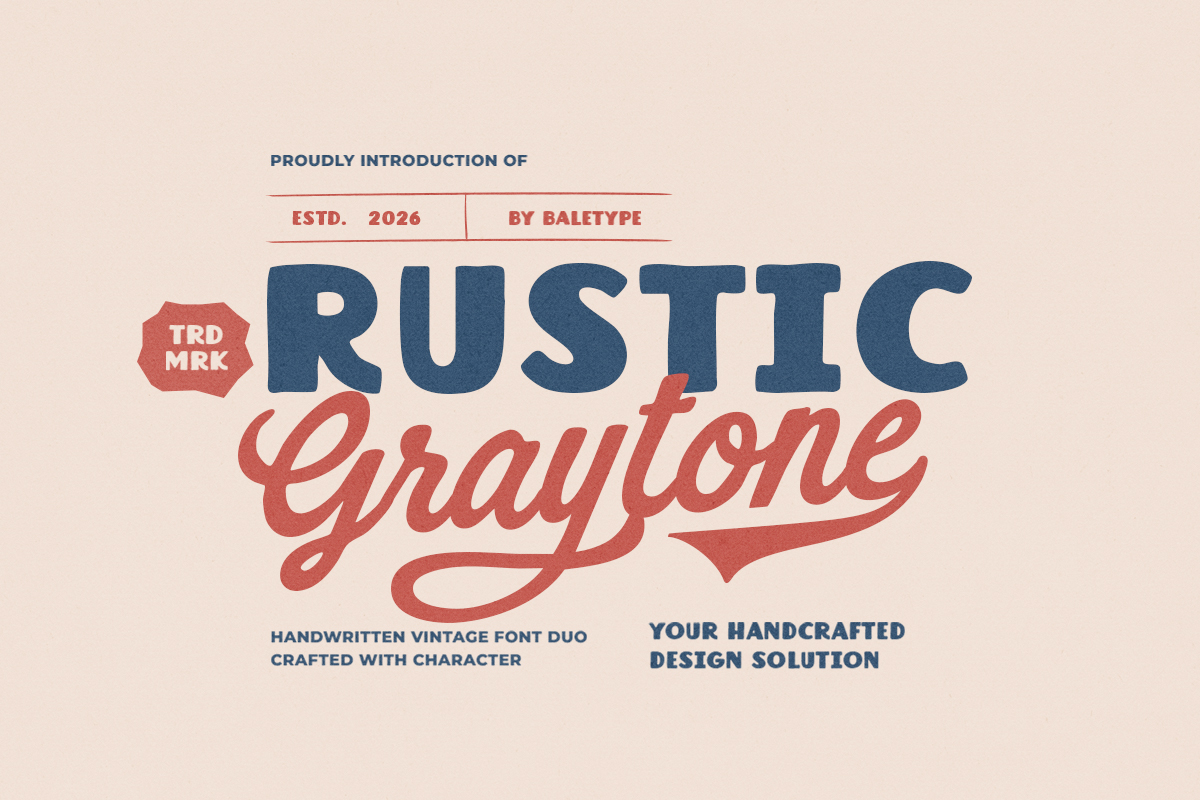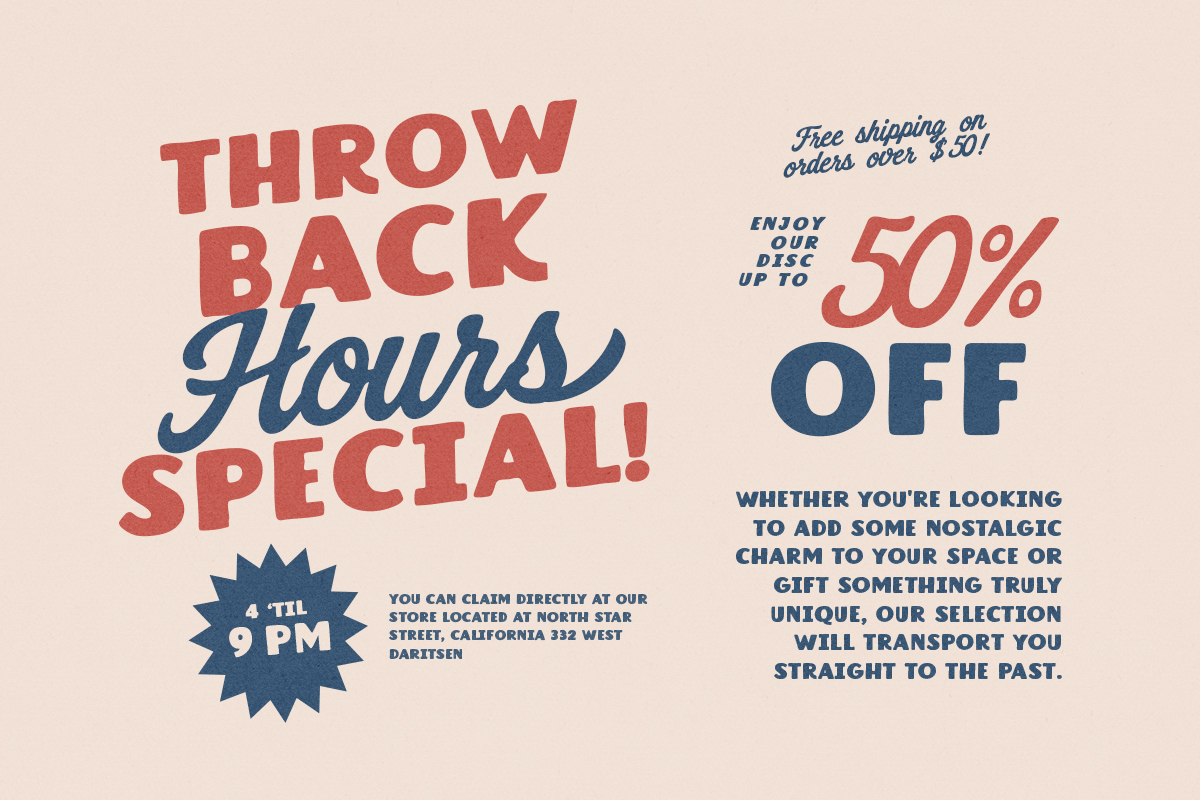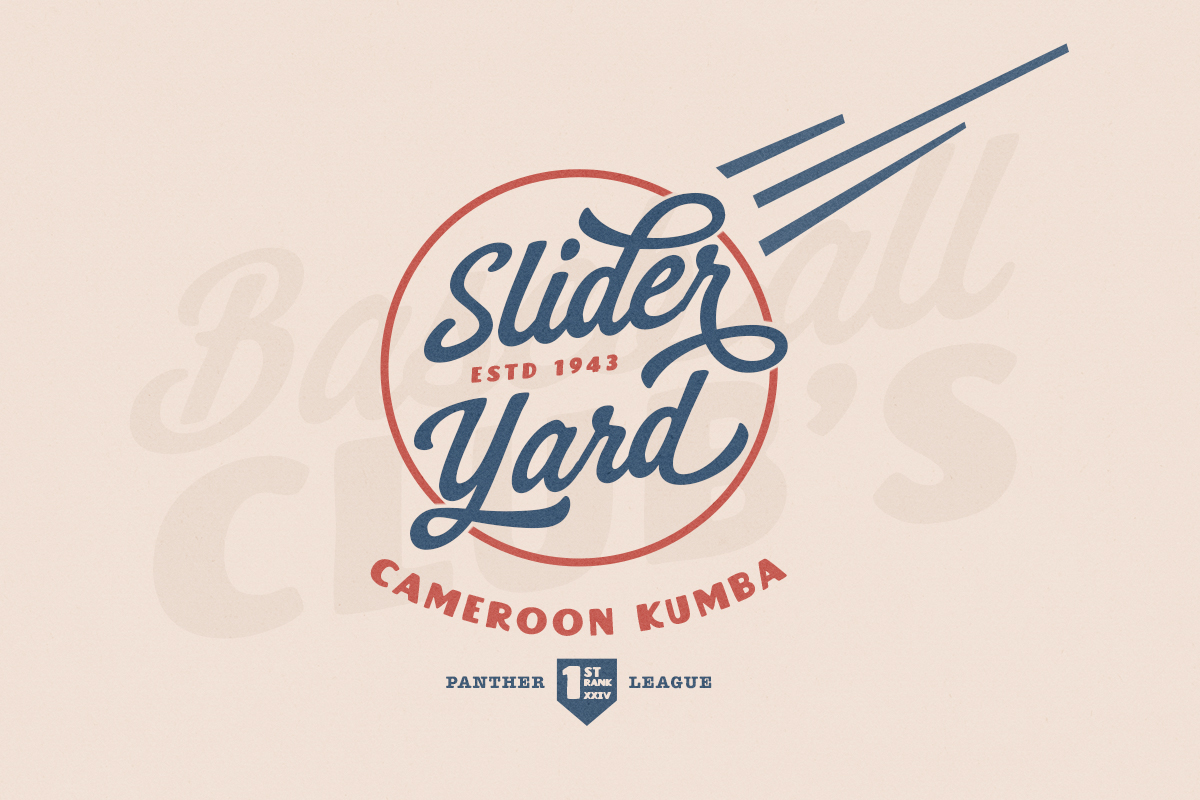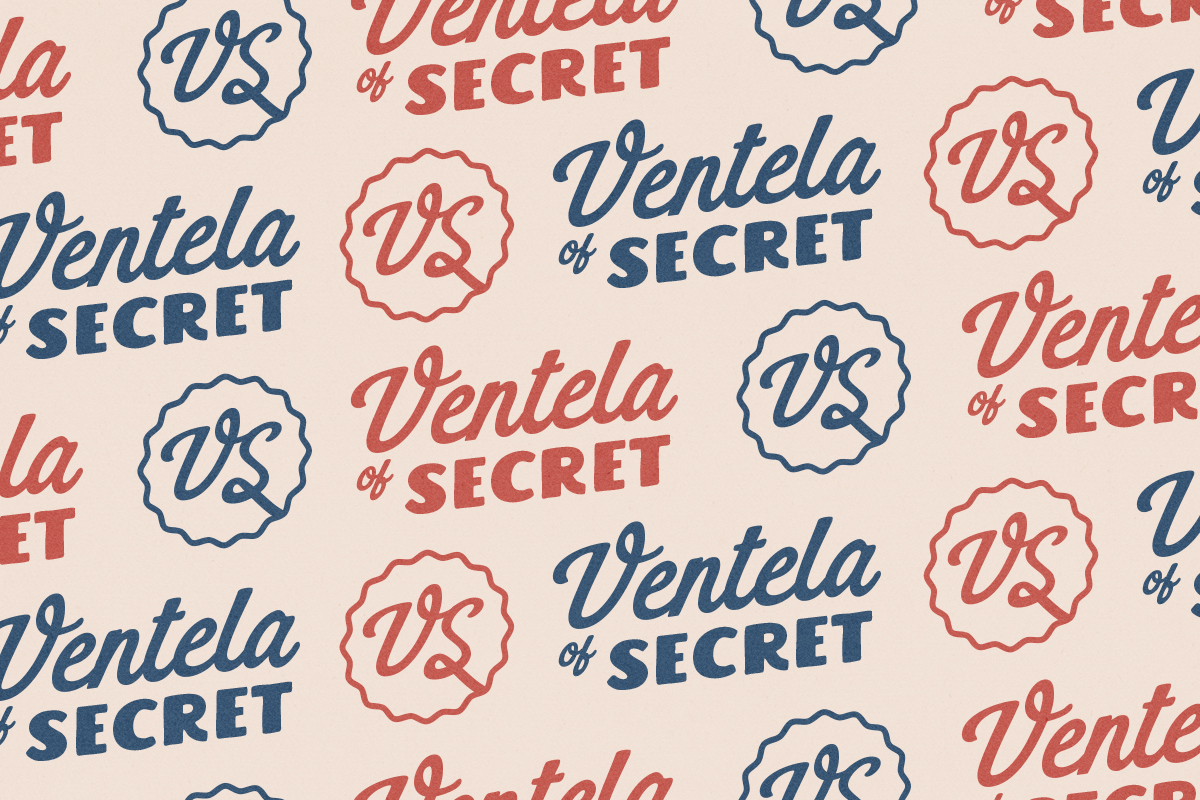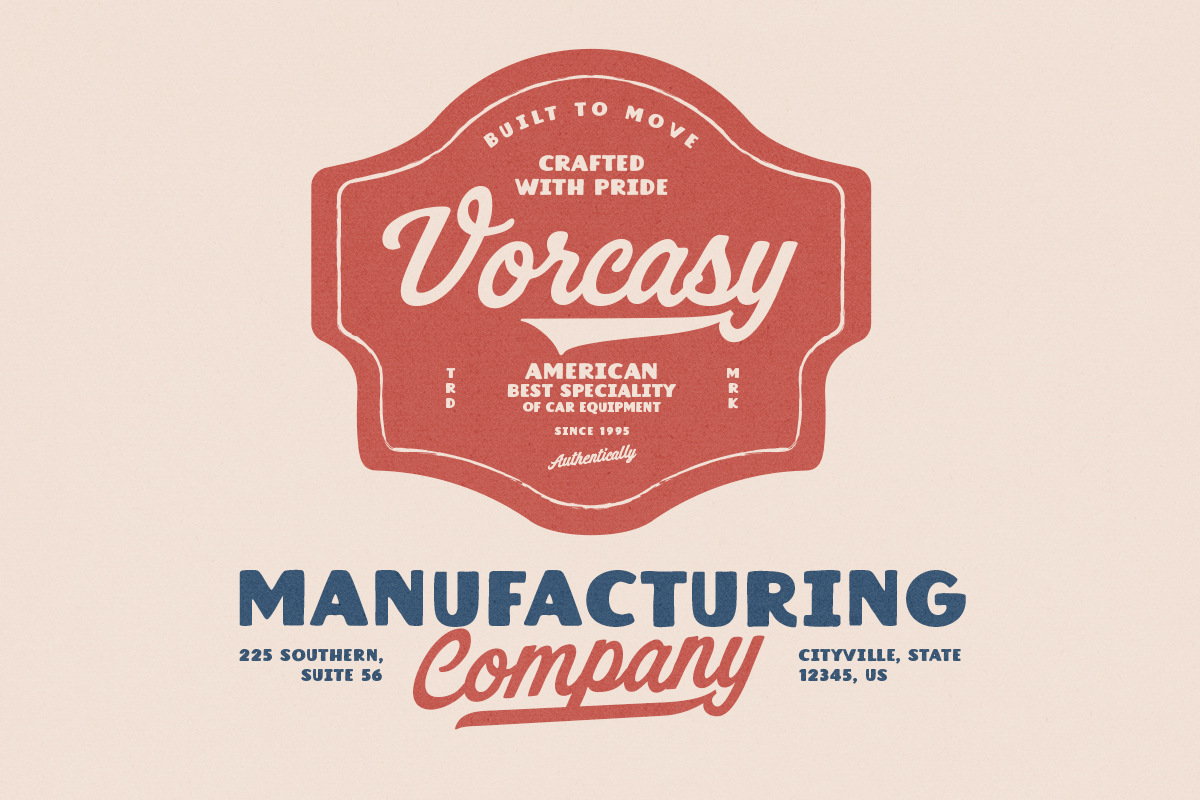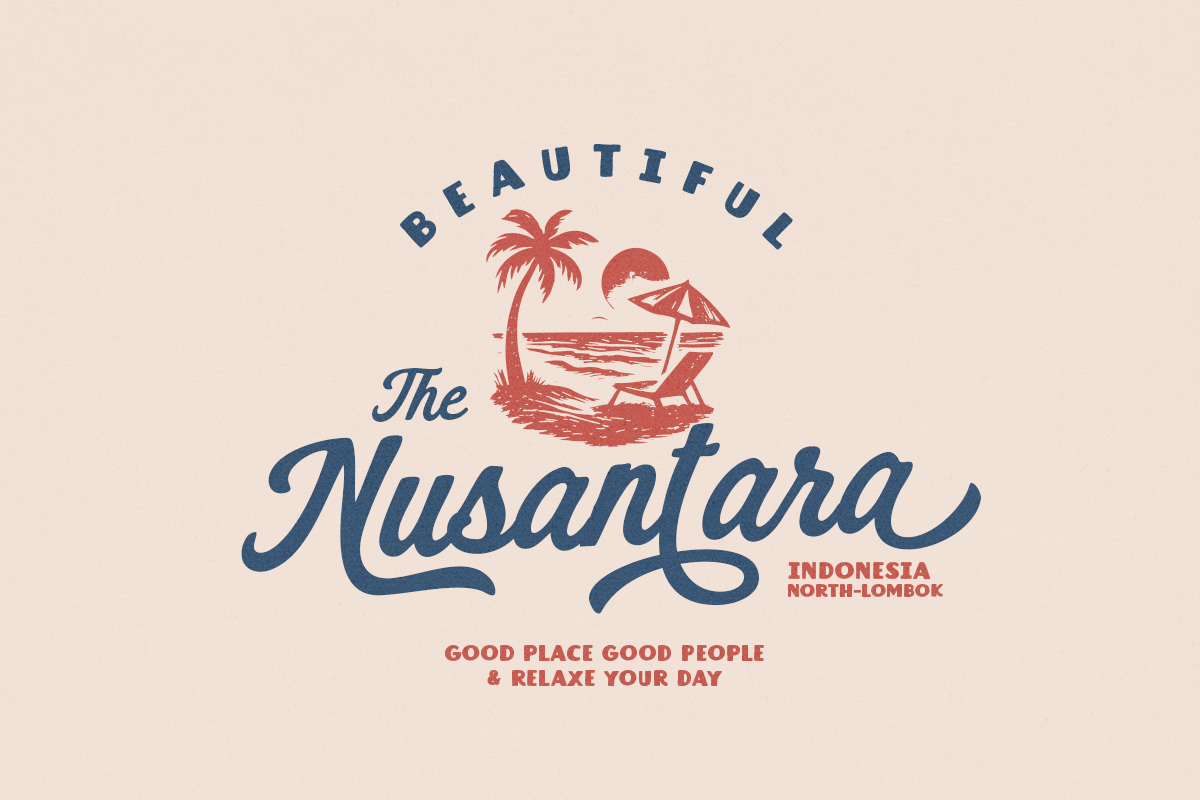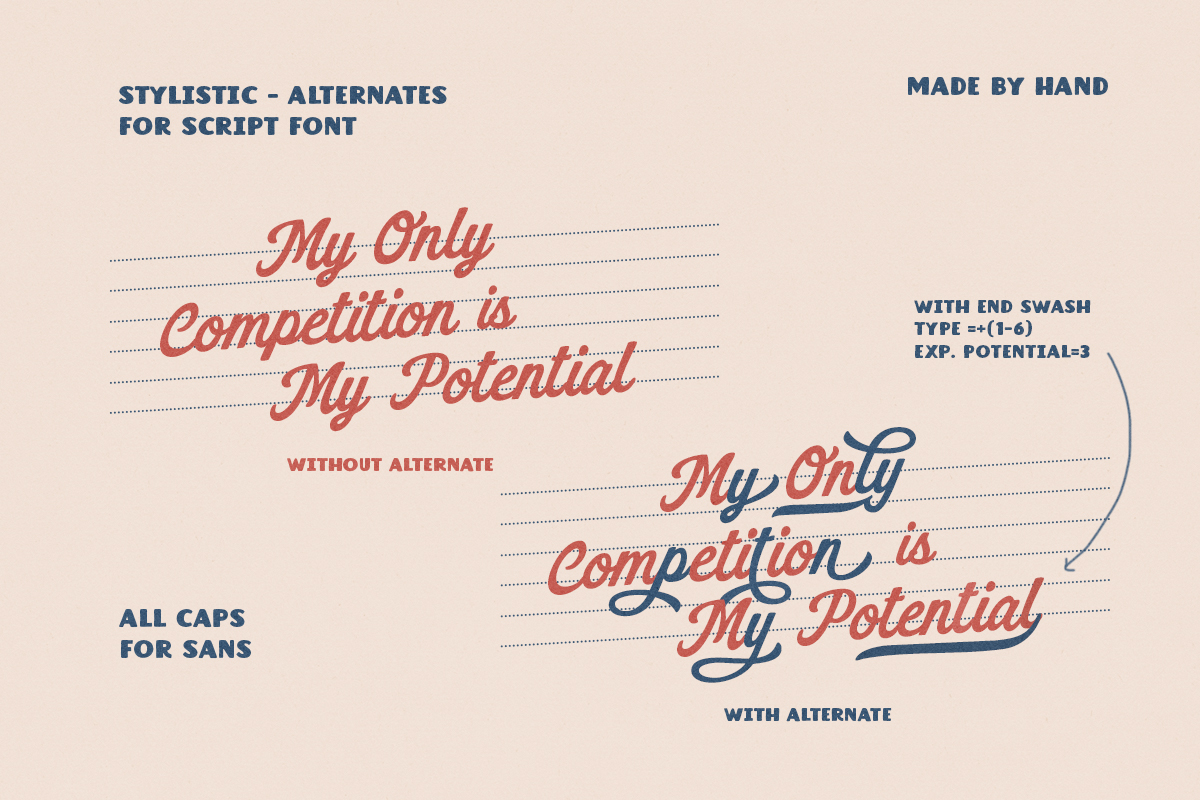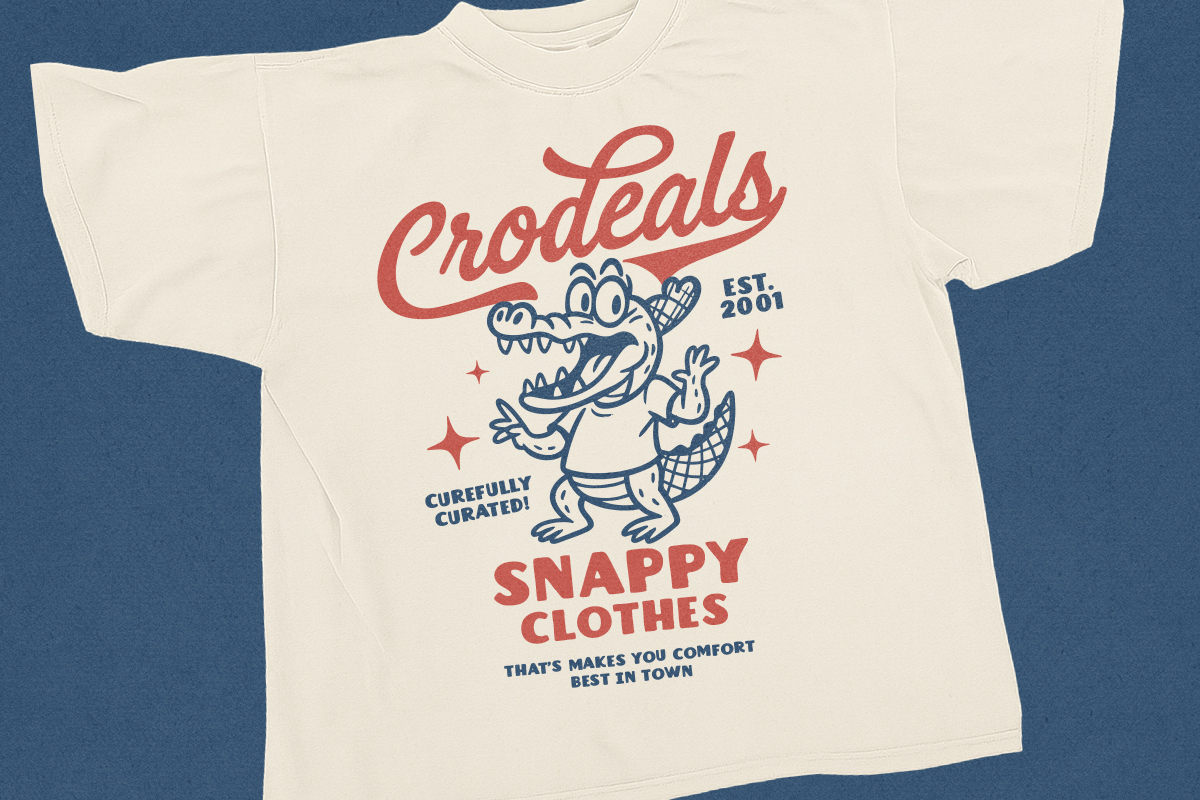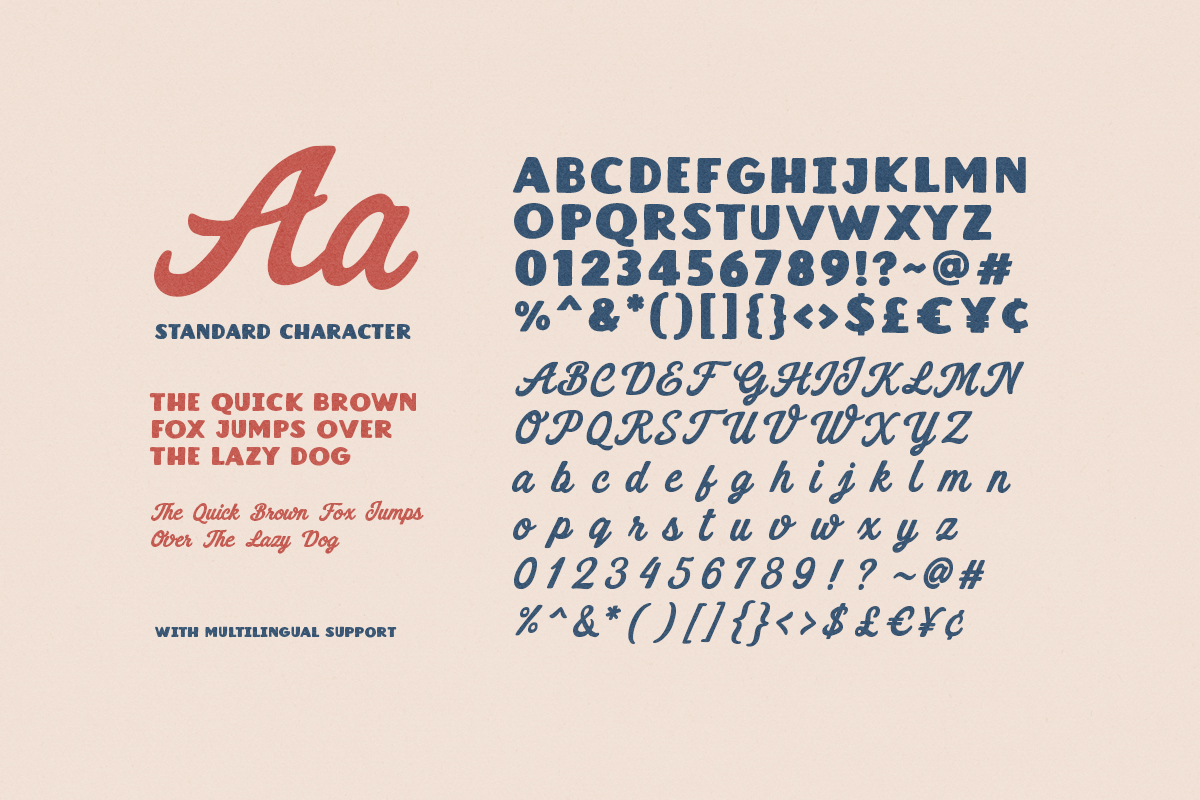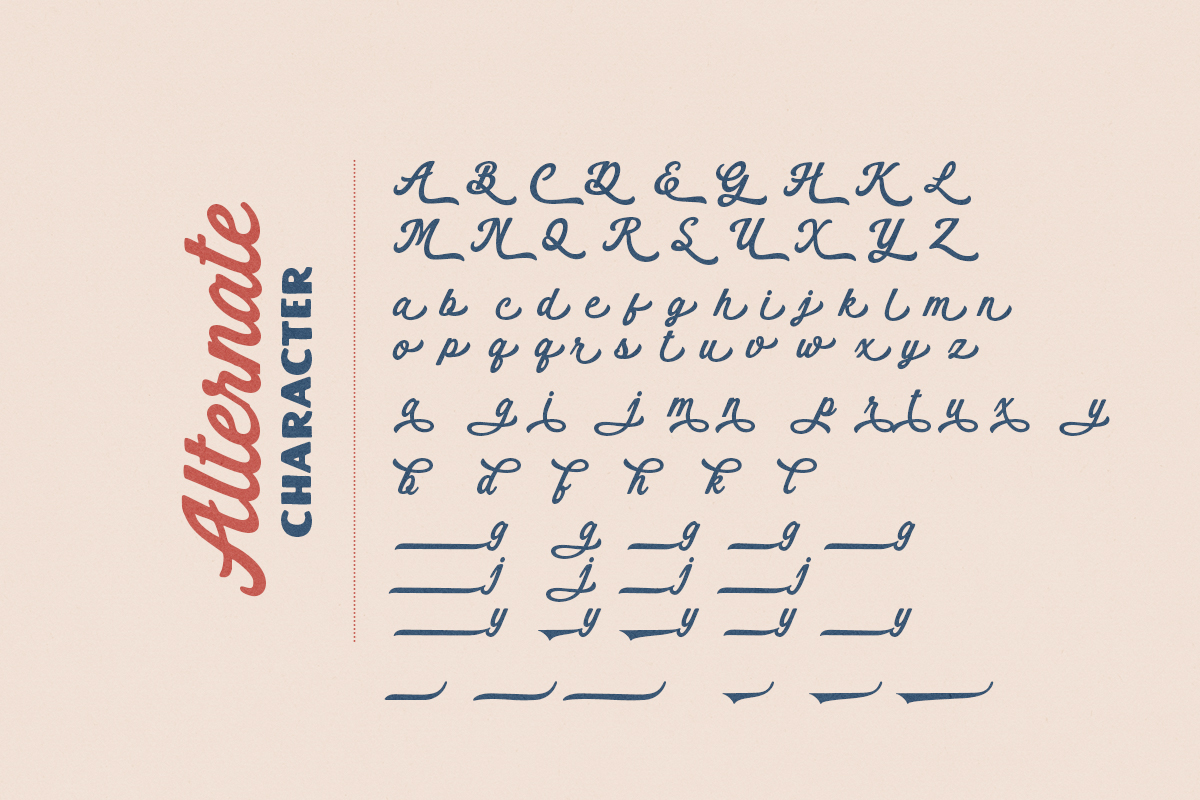
Rustic Graytone is a vintage font duo with bold and hand lettered looks. Comes with bold sans and stylish script, this font duo can be use to make great logotype. You can use this font for any purposes such as branding, logotype, quote, and any project that require retro vibes. The script of this pack contains alternates and ligatures that will make your design more stunning. To add some end swash, just activate the logotype and type in the end of your words with equal + number(1-6) for example Graytone=4. This font duo also support multi language!
Rustic Graytone – Vintage Font Duo
Rustic Graytone is a vintage font duo with bold and hand lettered looks.